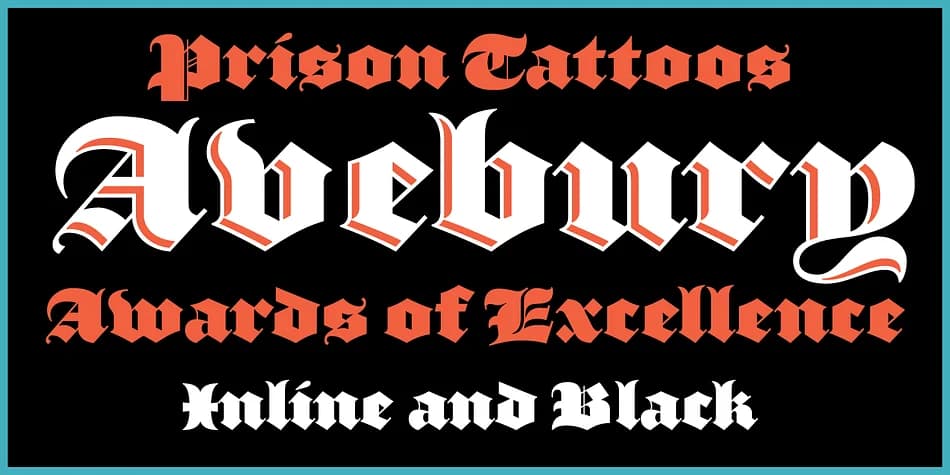
About Avebury Font
Avebury by Parkinson Type Design is a bold, modernized blackletter that bridges historic tradition with genuine contemporary readability. Drawing from early blackletter designs at the Caslon and Bruce Type Foundries, this typeface captures the architectural weight and presence of those foundational faces without the legibility friction that makes period-authentic gothic fonts so challenging to read in actual use. The careful refinement throughout improves accessibility while preserving character and visual presence, making it a practical choice for real design work rather than historical recreation.
You'll find genuine, concrete application across wedding ceremony certificates, craft beer label designs, vintage book covers, and luxury packaging for boutique goods and specialty brands. The ultrablack weight delivers visual authority at any viewing distance, while the inline variant creates a separate visual layer through its outlined letterforms, giving you flexibility within a single font family. Since the font is built exclusively for display work, set it large in headlines and titles, then pair it with a straightforward sans serif when you need legible body text or supporting information.
- Ornate, Gothic
- Logos, Certificates
- medieval themes, band merch, and tattoo lettering
- a clean sans-serif for body text
Avebury Font is a blackletter font that shines as a display or heading face. Pair it with a clean serif or sans-serif font for body text β the contrast creates a clear hierarchy while the two styles stay balanced and easy to read.